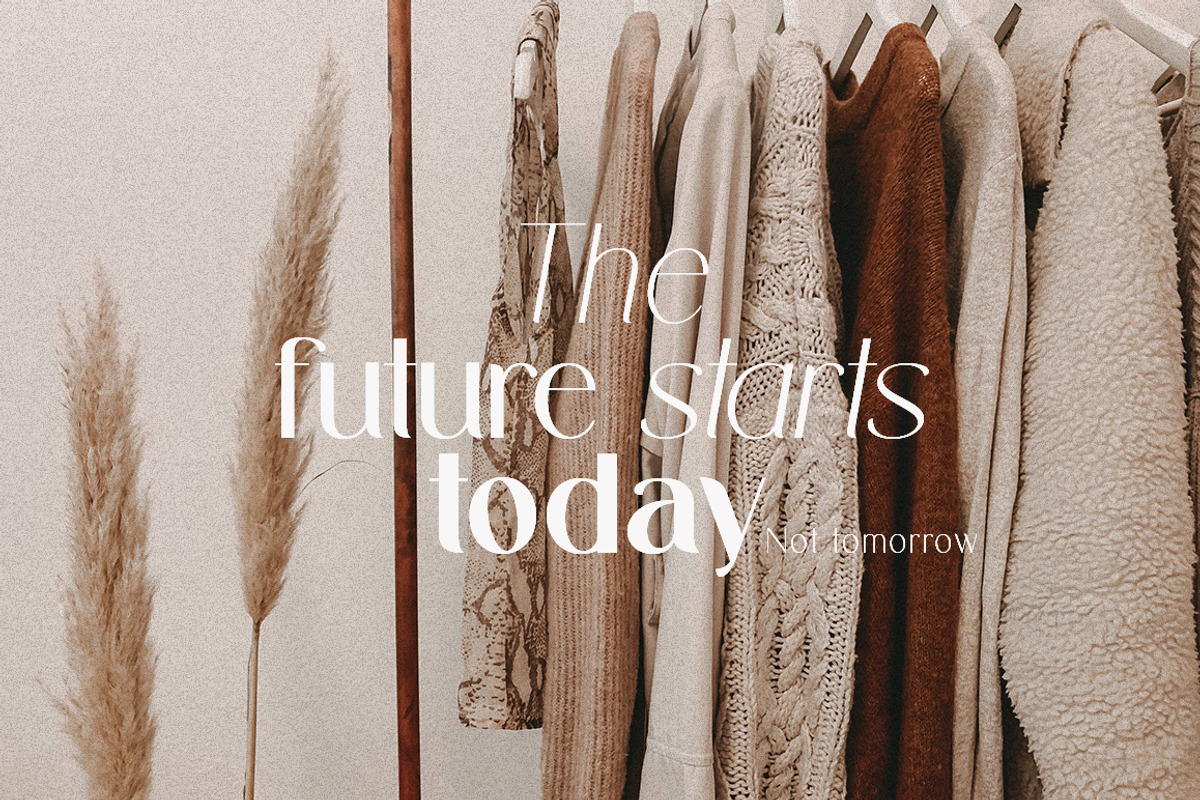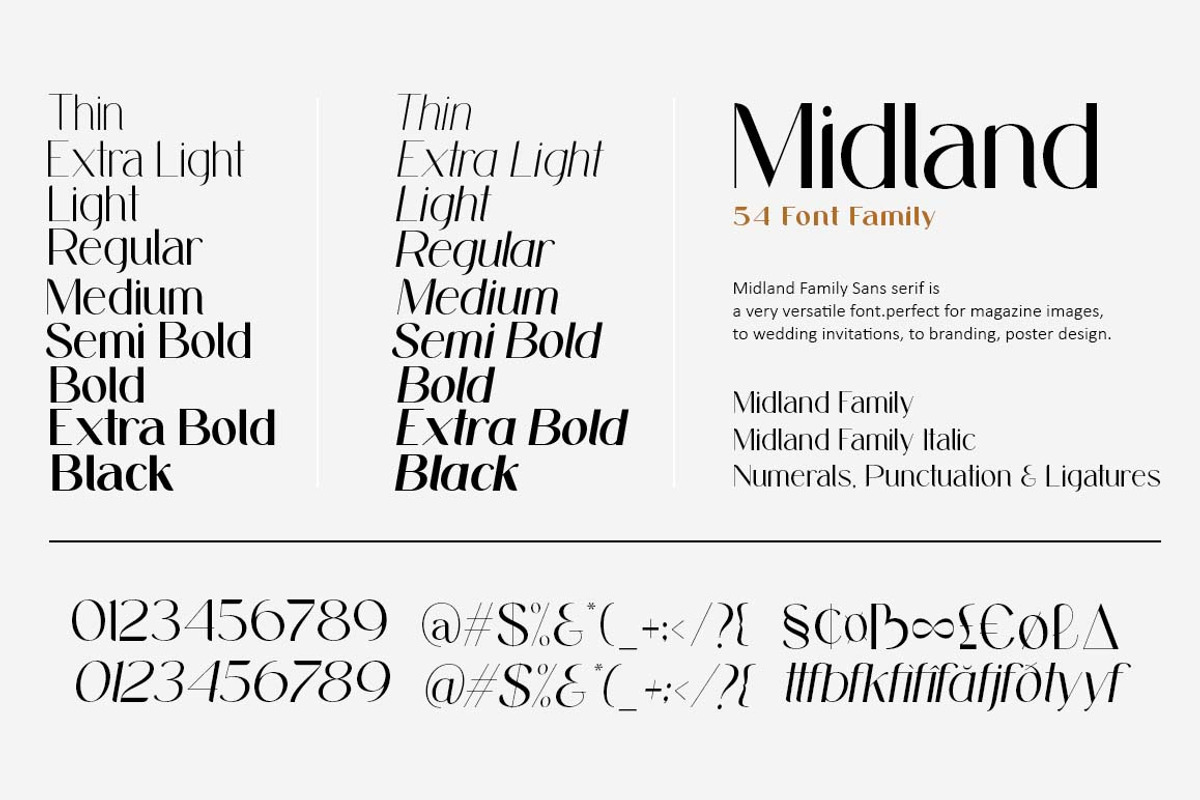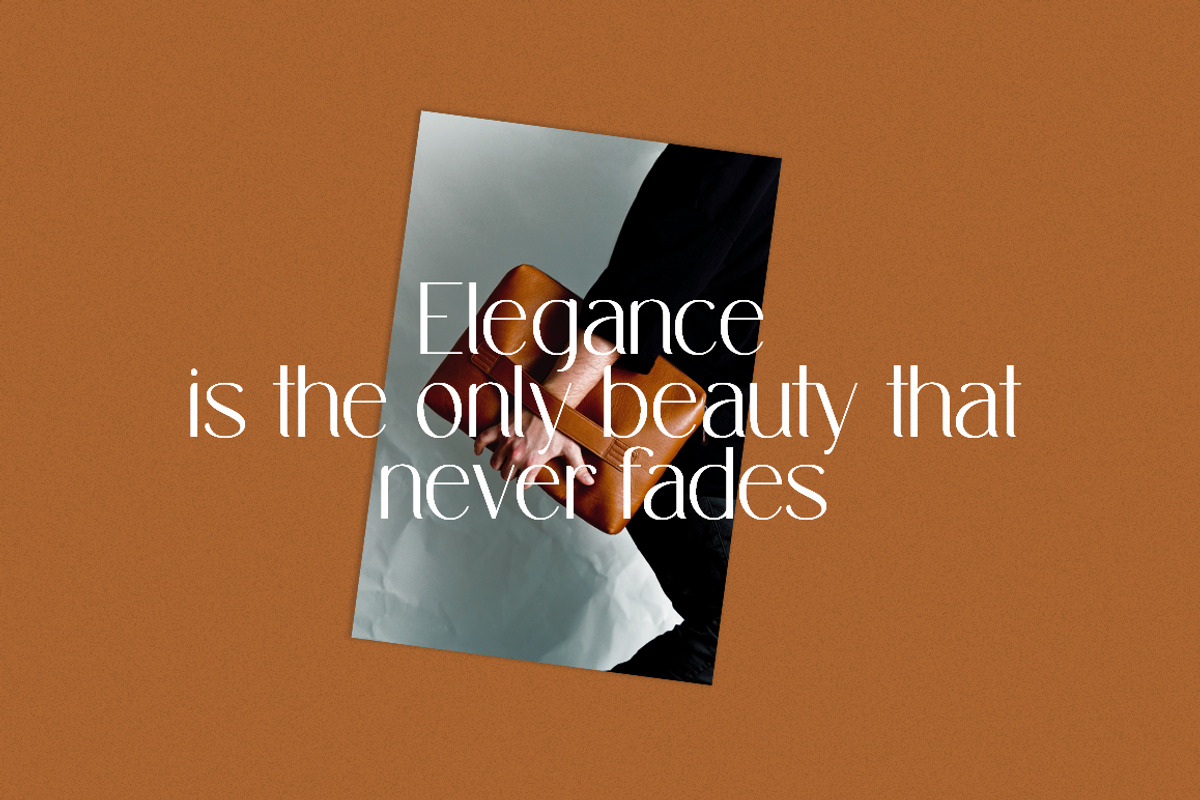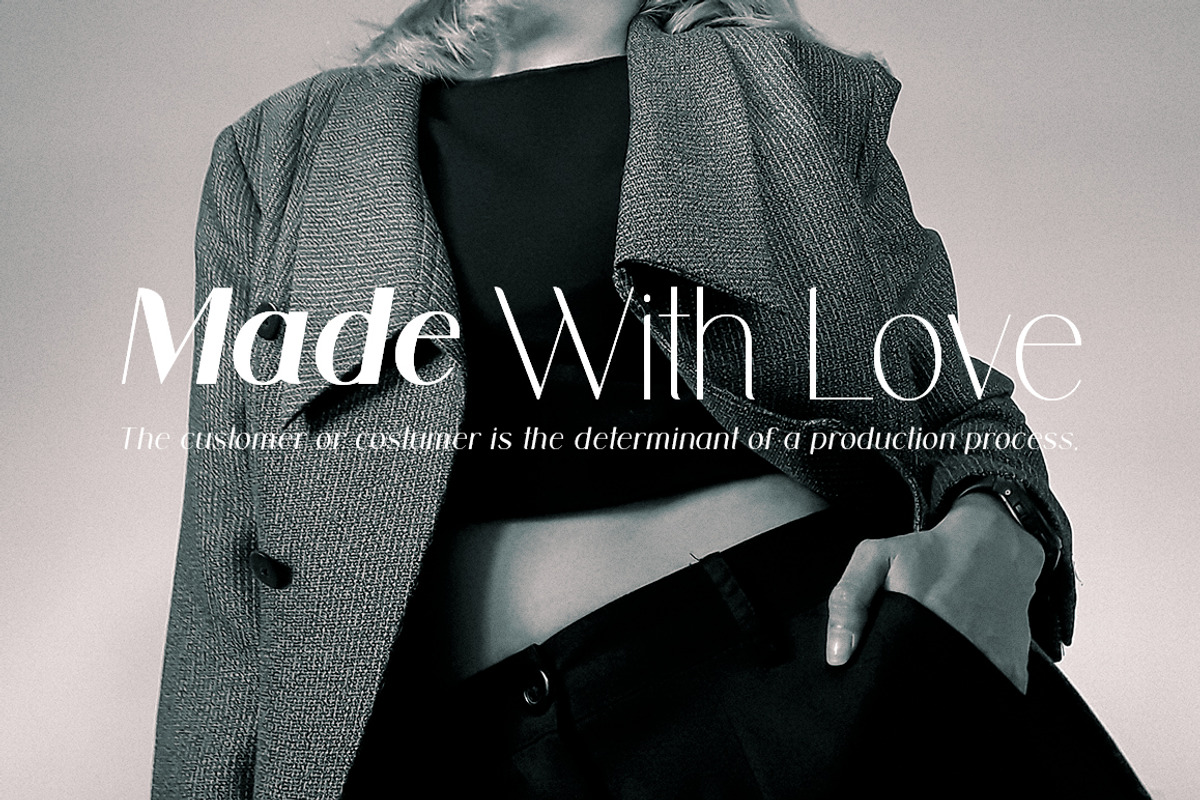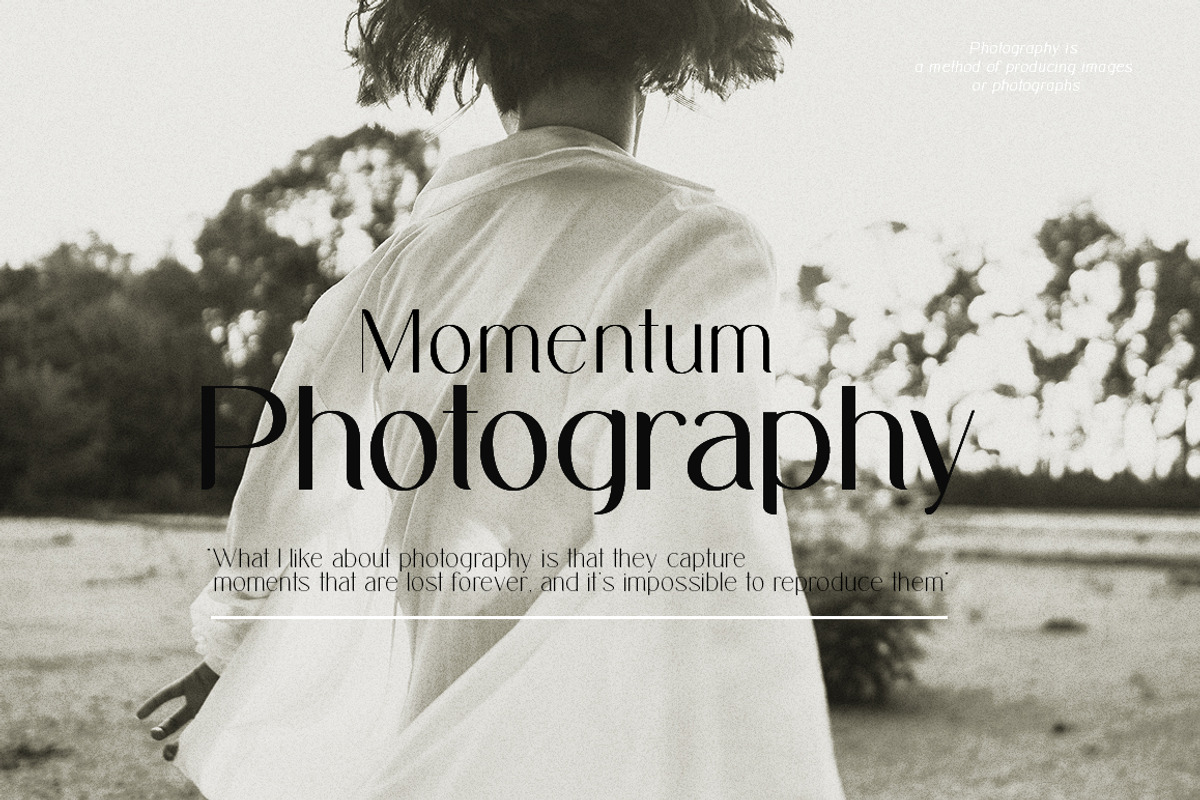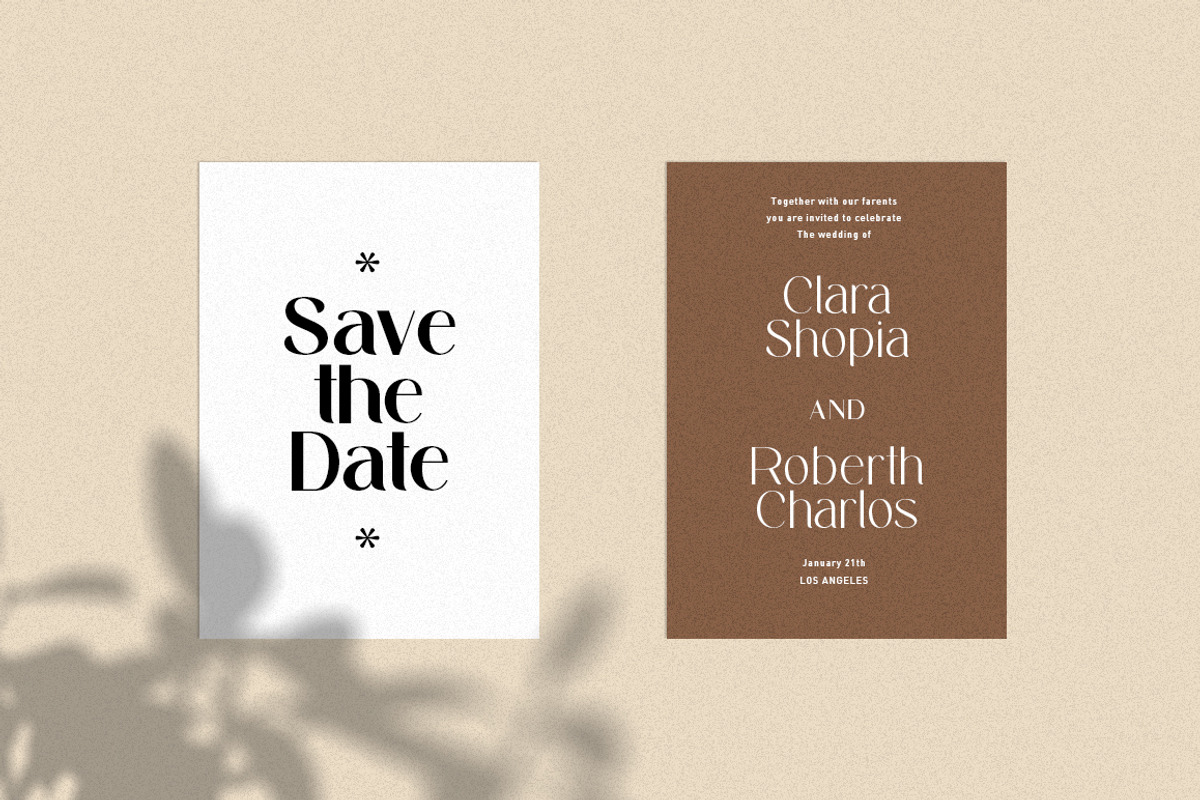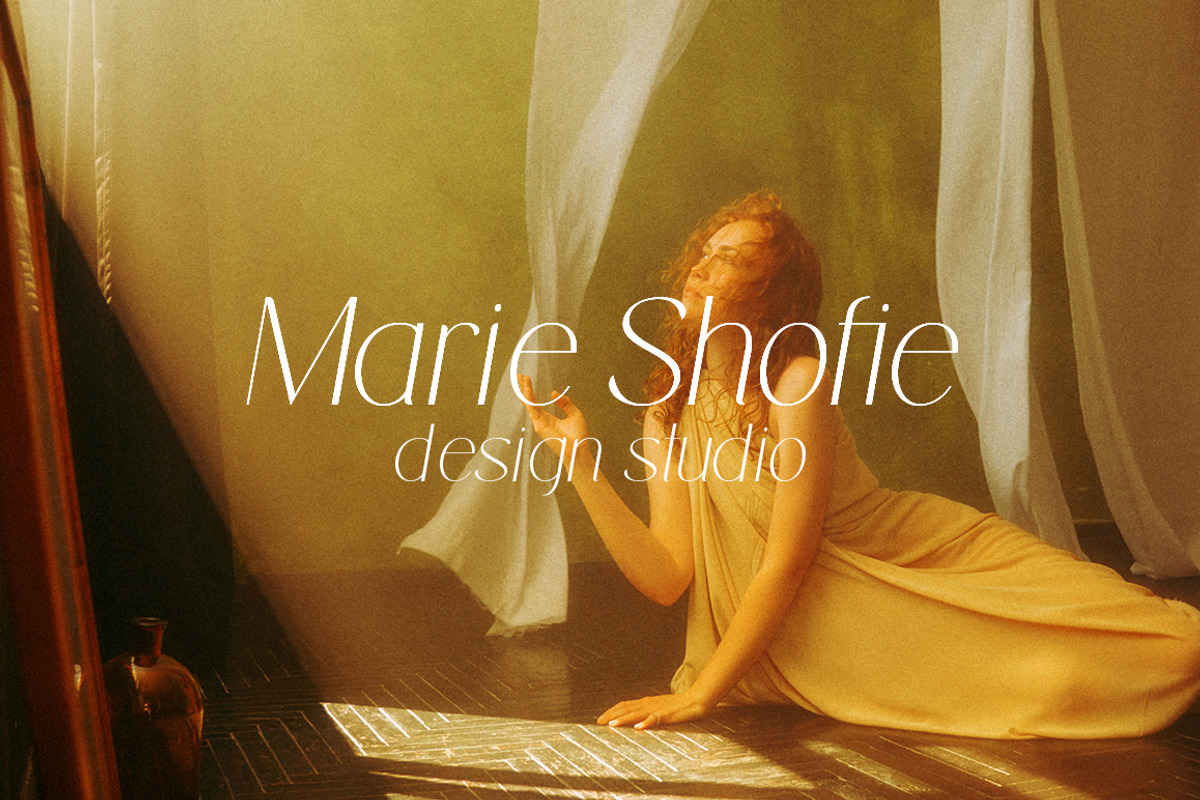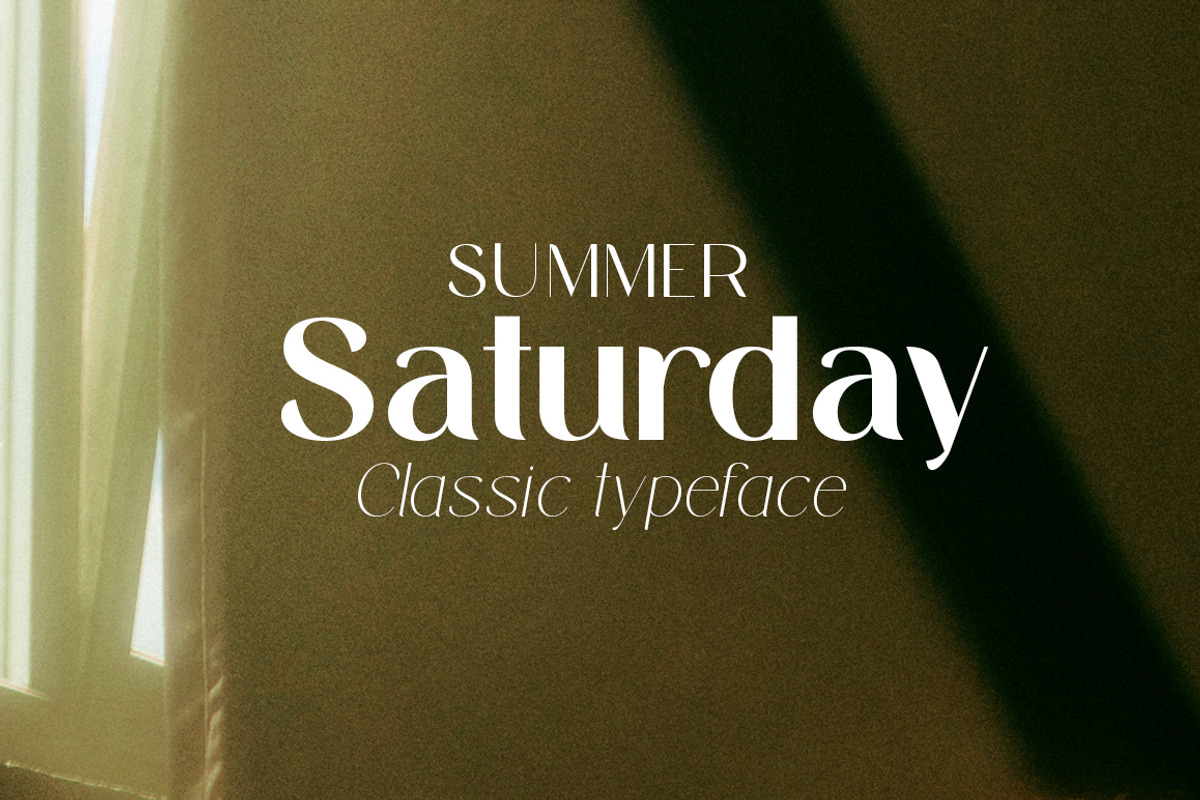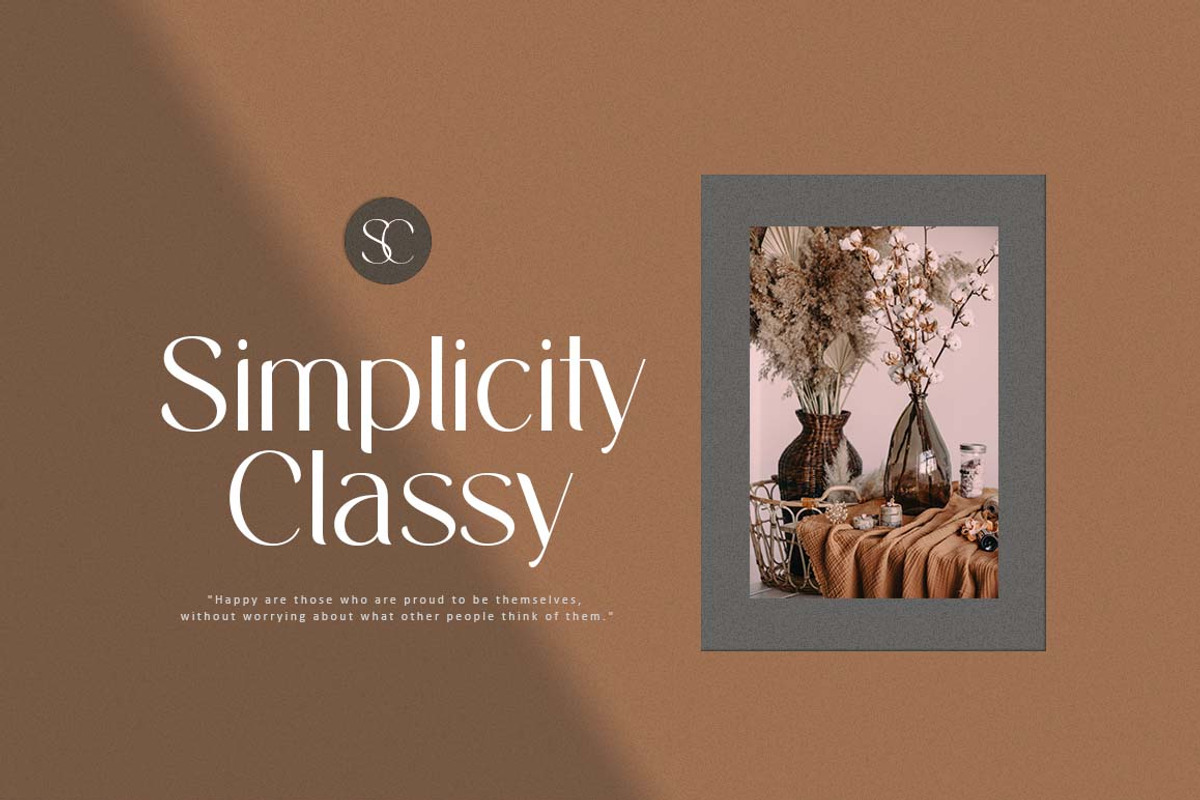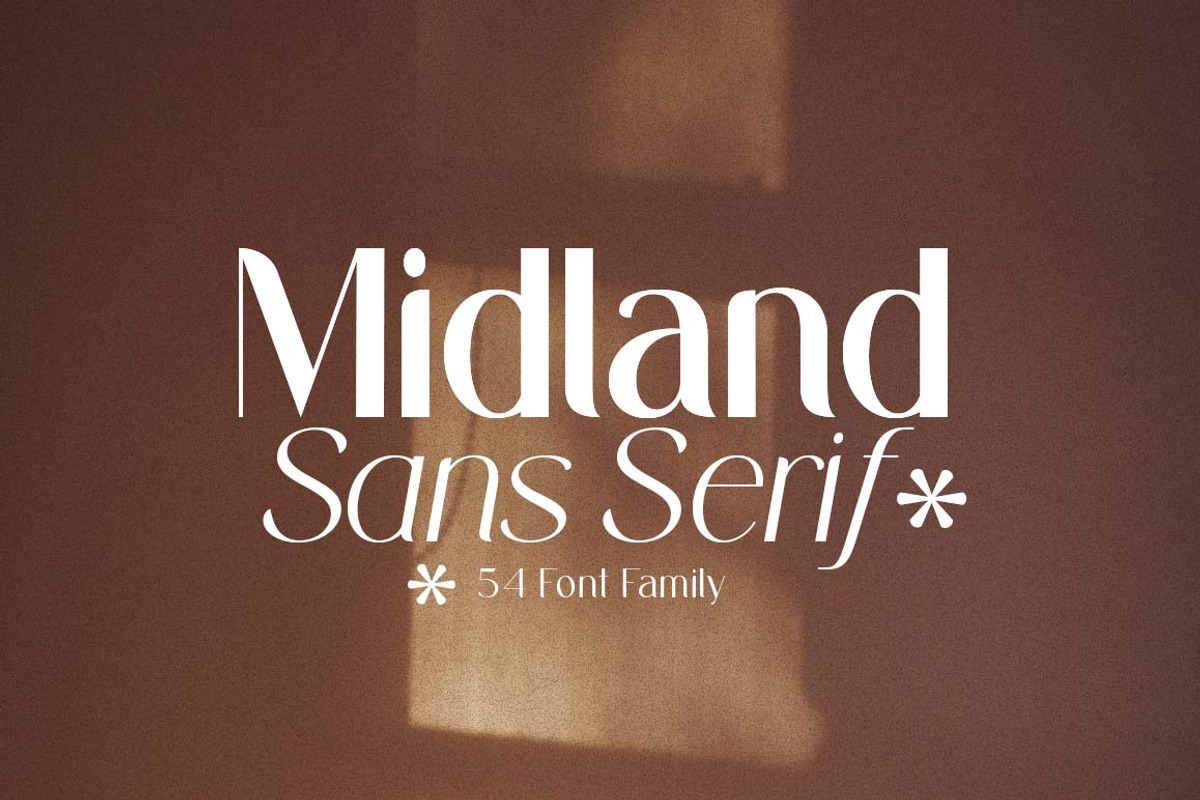
Midland Family (54 Fonts)
Midland Family Sans serif is a very versatile font. perfect for magazine images, to wedding invitations, to branding, poster design, and more.
Its strong presence and subtle details create a striking yet readable aesthetic across a wide range of creative applications.
upright and slant. From light to black styles. to add dynamic motion and emphasis to your typography.
Numerals, Punctuation & Ligatures